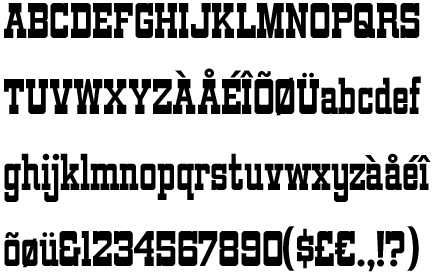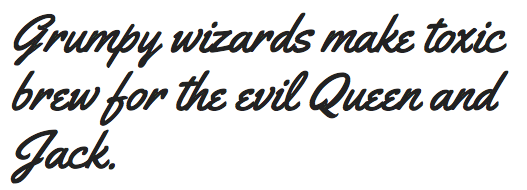
Brian J. Bonislawsky
Born in 1973 in Pittsburgh, PA, Brian Bonislawsky has been involved in many type design projects and created many foundries.
• He started out and became known for Astigmatic One Eye Typographic Institute (or: AOE, or: Astigmatic One Eye, or: Astigmatic), which offered about half of its large collection of fonts for free. Fontspace link. FontShop link. Astigmatic is located in Las Vegas, NV.
• Versus Twin was established by Brian Bonislawsky and Brian Jaramillo in 2004. It produced about 12 typefaces in all.
• Breaking The Norm (or: BTN) was started by Brian Bonislawsky and Stuart Sandler ca. 2005. It offers about 500 typefaces, many of which are in a handwritten style.
• Monogram Fonts Co. (or: MFC) was started ca. 2005, and is also located in Las Vegas, NV. It specializes in monogram-style fonts, whichare often ornamental and/or Victorian.
• In 2007, Debi Sementelli and Brian set up Correspondence Ink, which saw its first font, Belluccia, appear on MyFonts in 2011.
• In 2010-2011, Brian placed some free fonts at the Google Directory.